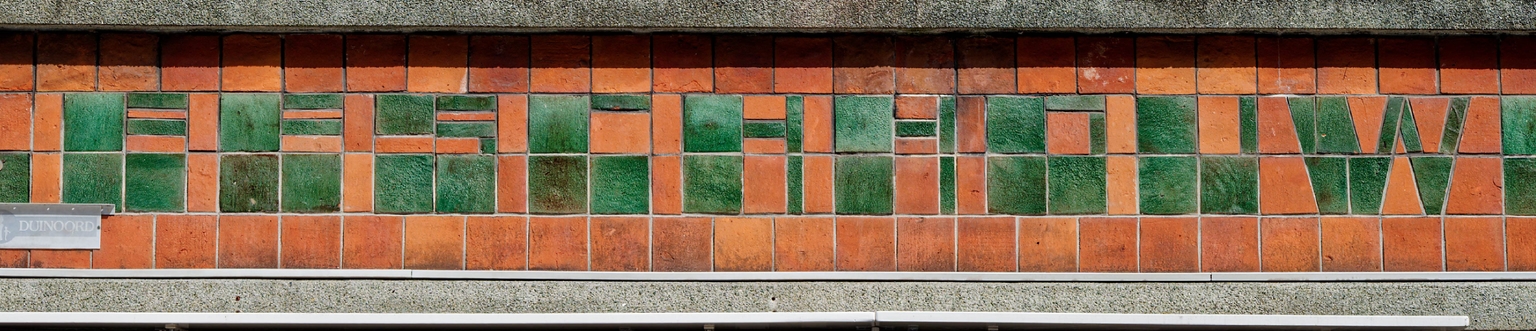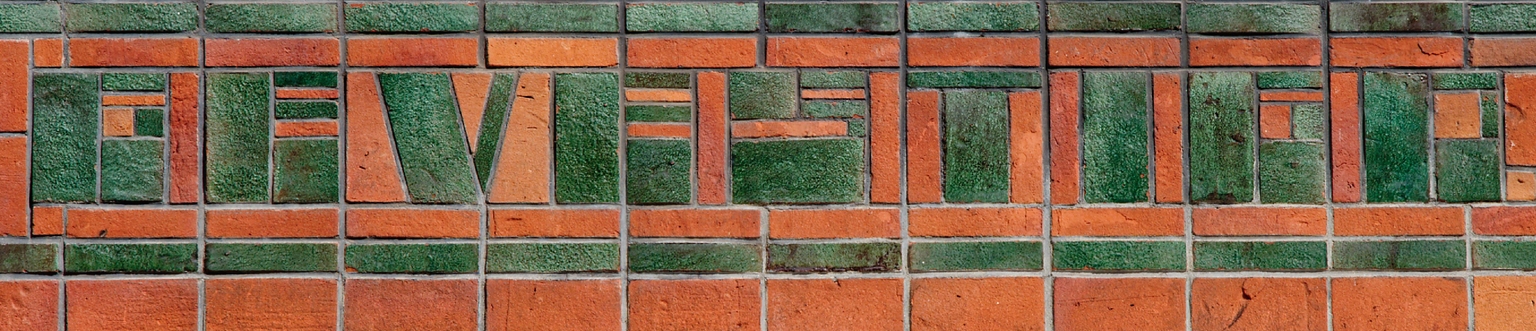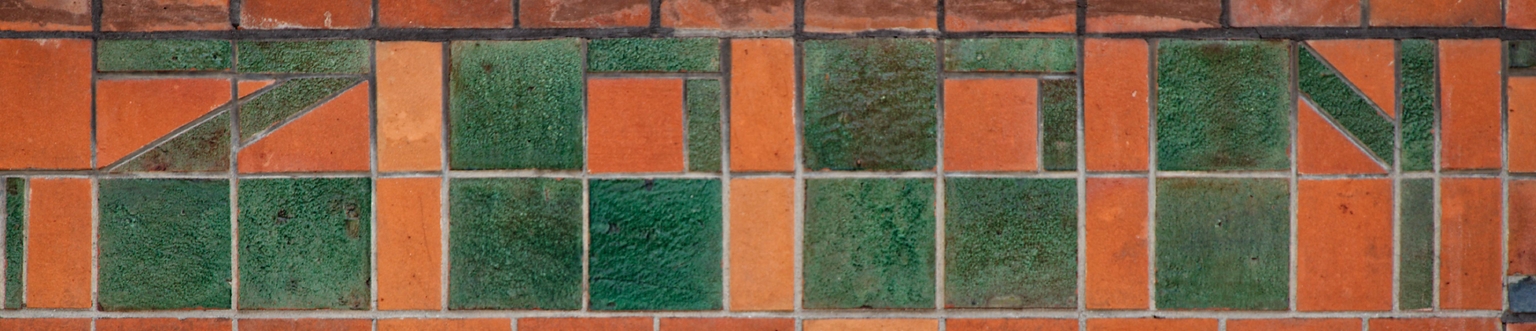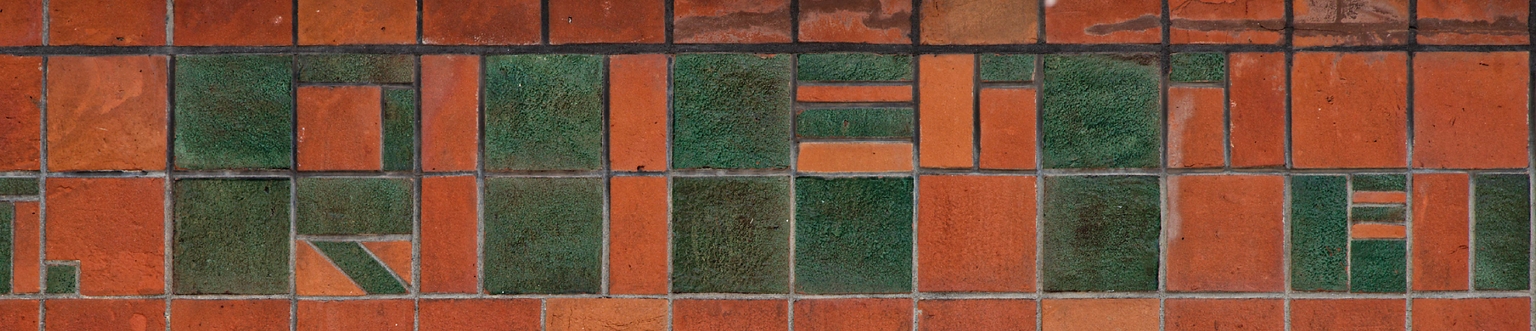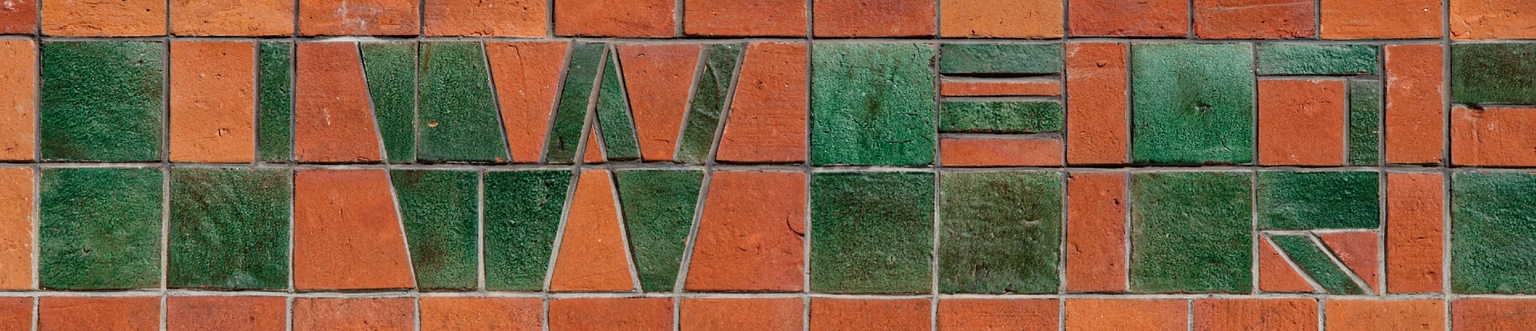
Klinker
Klinker is a squarish, modular sans typeface designed by Paula Mastrangelo, inspired by the handsome tile lettering found on the facade of a butcher shop at Obrechtstraat 177 in The Hague. Boldly geometric and rhythmically spaced, the original inscription—crafted in ceramic tiles—embodies the practical elegance of early 20th-century commercial signage in the Netherlands.
With Klinker, Mastrangelo has transformed these vernacular letterforms into a full digital typeface that preserves their solid, blocky charm while expanding their potential for contemporary use. Its sturdy shapes and modular construction evoke both the hand of the artisan and the logic of the grid, making it ideal for signage, posters, book and record covers, websites, and visual identities that call for character and structure.
Rooted in a specific place and everyday history, Klinker brings a piece of The Hague’s typographic heritage into the present. It’s a celebration of craft, function, and local design.